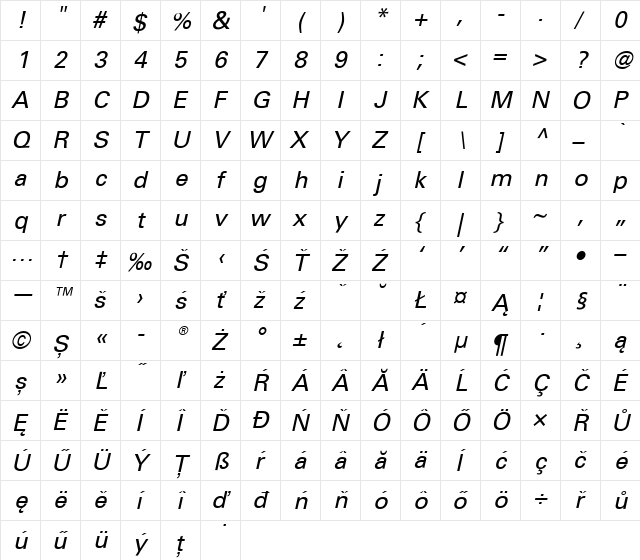
Univers CE 55 Medium Italic
Design Context for Univers CE 55 Medium Typeface
Univers CE 55 Medium offers clean, dependable letterforms without strong stylistic allegiance, making it a practical choice for designers who need flexibility. Its italic angle brings a sense of urgency and motion to the letterforms.
Pro Tip: Try Univers CE 55 Medium for annotation and caption copy alongside an upright companion — the contrast in angle creates a dynamic but ordered typographic system.